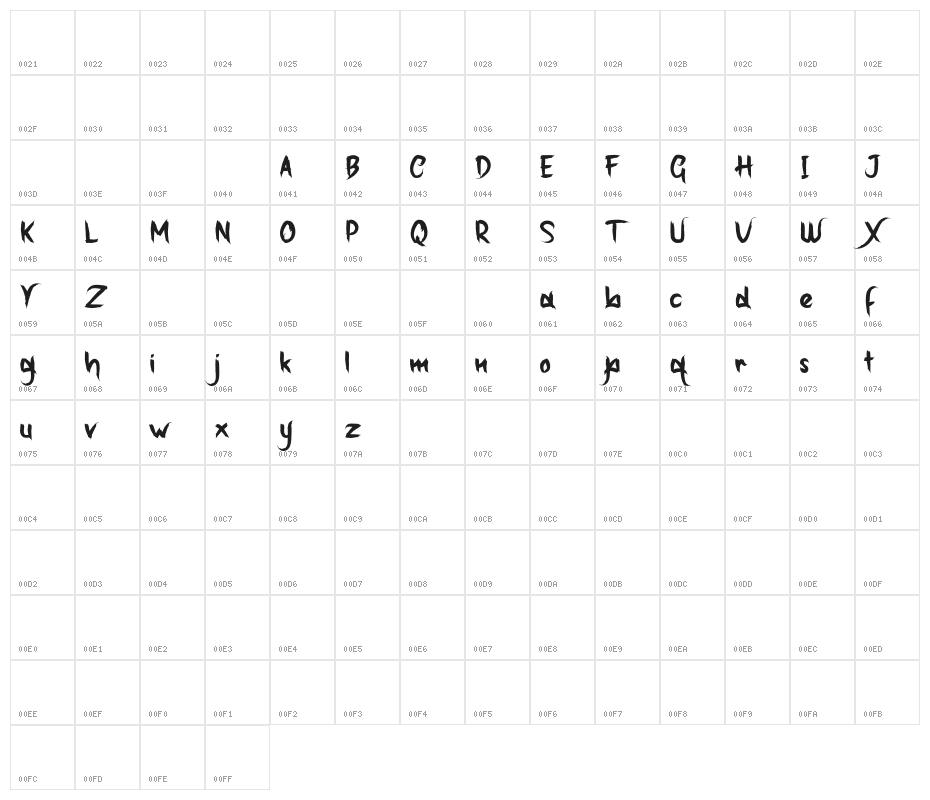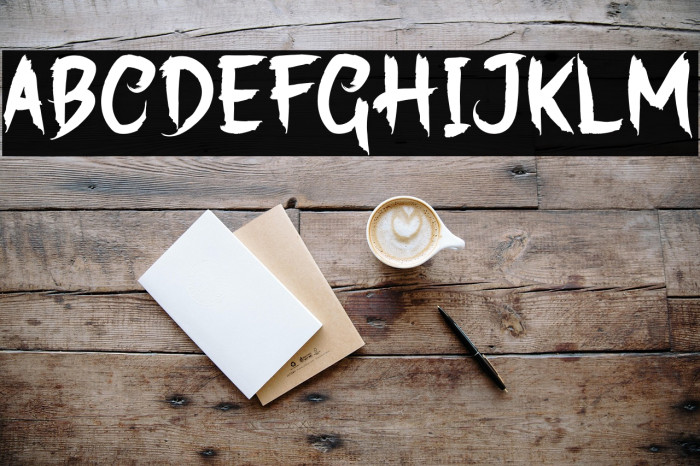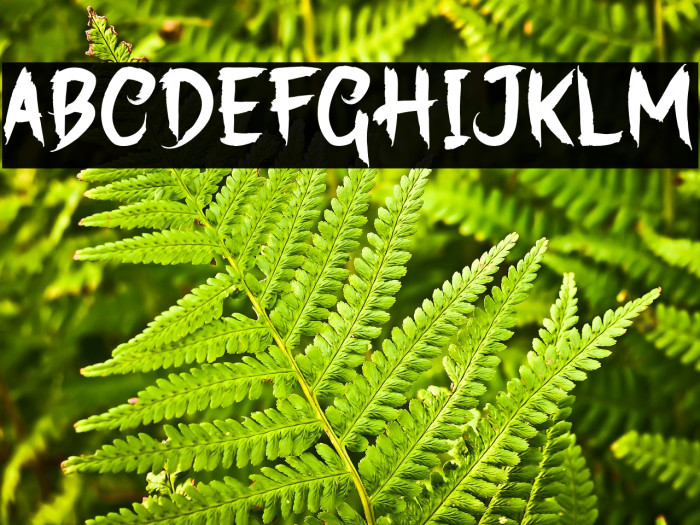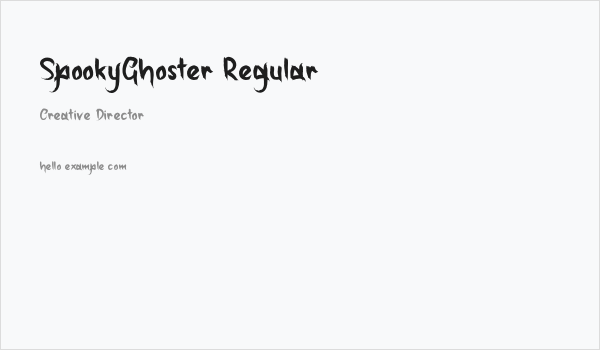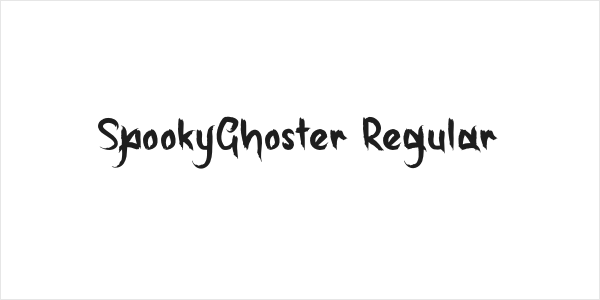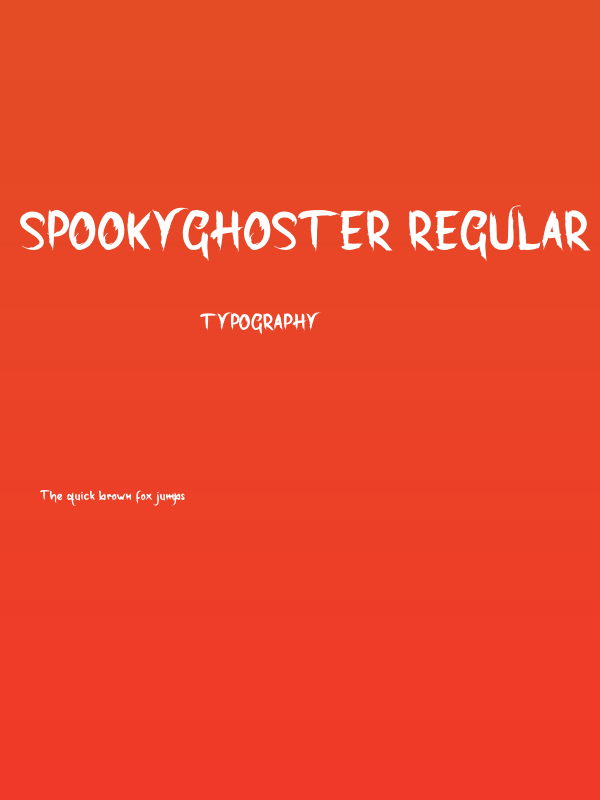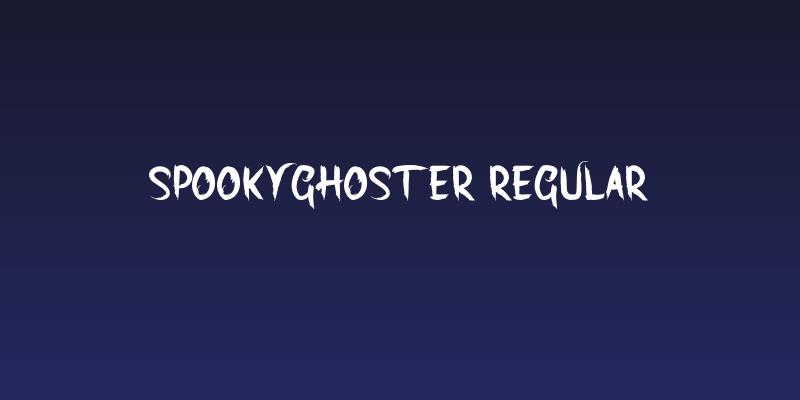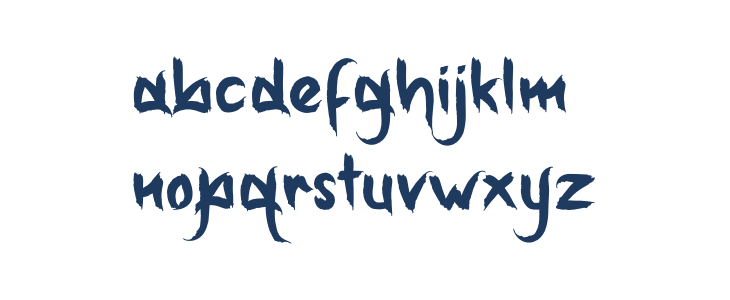
SpookyGhoster-Regular Font
SpookyGhoster-Regular Description
This font features a bold, brush-like style with a spooky and eerie aesthetic. The strokes are uneven and jagged, giving it a hand-drawn appearance that evokes a sense of mystery and intrigue. The uppercase and lowercase letters maintain a consistent style, with sharp edges and varying thickness that add to its dramatic flair. The font's unique character is further emphasized by its irregular spacing and dynamic movement, making it ideal for creating an unsettling or ghostly atmosphere in design projects.
| Proposed Projects | Ideal for Halloween-themed designs, horror movie posters, haunted house flyers, and spooky event invitations. |